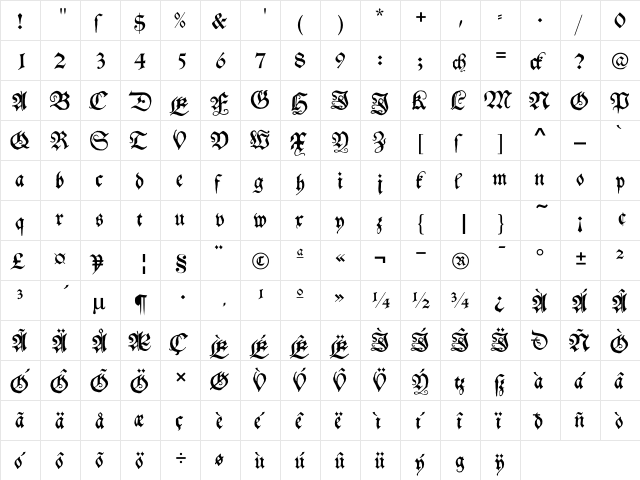
Schwabacher Regular
| Designer | Dieter Steffmann |
Design Context for Schwabacher Typeface
Schwabacher takes a measured approach to typography — its balanced proportions and neutral character make it a reliable workhorse for both digital and print work.